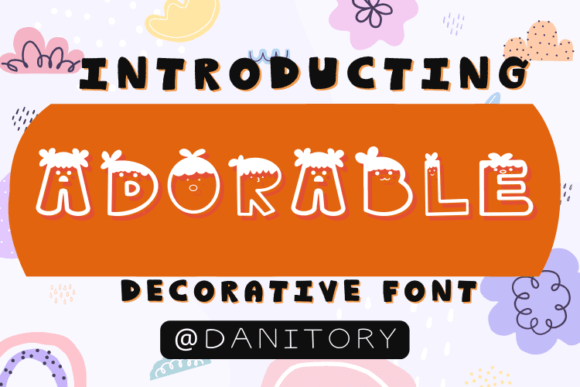
Have you ever been stuck on a design project, struggling to find the right words to convey your message? That’s when inspiration strikes, and you’re overcome with excitement to bring your idea to life. You envision a font that’s playful, charming, and instantly recognizable – a font that will make your project stand out from the crowd.
Enter the Adorable Font, a delightful decorative font designed to elevate your creative endeavors. This masterfully crafted font is the perfect addition to any designer’s toolkit, offering a unique and eye-catching way to express your personality and style. Whether you’re working on a children’s book, a wedding invitation, or a social media campaign, the Adorable Font is sure to bring a touch of whimsy and charm to your project.
Key Features of Adorable Font
- Font Family: Adorable Font is a sans-serif font family designed for digital use, available in 4 weights (Light, Regular, Medium, Bold) and 2 styles (Regular and Italic).
- Character Set: The font includes a comprehensive character set, covering Latin, Greek, and Cyrillic alphabets, as well as punctuation and symbols.
- Unique Characteristics: Adorable Font features a unique blend of modern and playful elements, with a rounded design that makes it approachable and friendly.
Adorable Font Review
First off, I have to say that I was immediately drawn in by the playful and whimsical vibe of Adorable Font. The rounded edges and cute character designs really make it stand out from more traditional font styles ✨. The font is perfect for creating a fun and youthful feel in your designs, and I can see it being especially great for children’s books, social media, and other casual applications.
However, I did notice a few limitations when working with Adorable Font ⚠️. One of the main issues is that it’s not as versatile as some other fonts, and it can be a bit tricky to use in more formal or professional contexts. Additionally, the font’s rounded edges can sometimes make it difficult to read, especially in smaller font sizes.
Overall, I think Adorable Font is a great addition to any designer’s toolkit, but it’s not a one-size-fits-all solution. I would recommend using it for projects that call for a playful, youthful feel, but be cautious when using it for more formal or professional applications.
- Playful and whimsical design ✨
- Cute character designs
- Perfect for children’s books, social media, and casual applications
- May not be suitable for formal or professional contexts
- Can be difficult to read in smaller font sizes
Tips for Getting the Most Out of Adorable Font
For the best results, use Adorable Font in combination with other design elements that complement its playful and whimsical style. Experiment with different font sizes, colors, and styles to create a unique and eye-catching design.
Adorable Font is ideal for use in children’s educational materials, party invitations, and other designs that require a playful and engaging tone. It’s also a great choice for social media graphics, logos, and branding materials that need a touch of whimsy and personality.
Q: Is Adorable Font optimized for digital use?
Yes, Adorable Font has been optimized for digital use, ensuring crisp and clear rendering across various screen resolutions and devices. The font’s design and hinting are carefully crafted to provide optimal legibility and readability on digital displays.